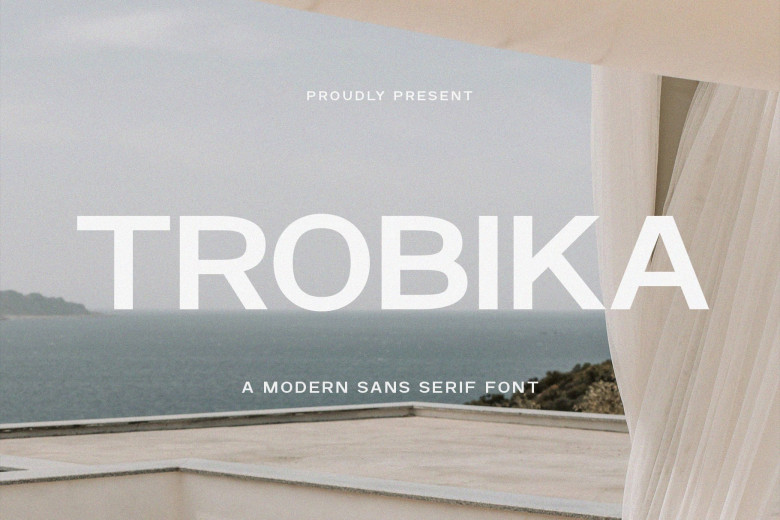
Trobika Font
Trobika is an elegant and modern typeface perfect for display purposes such as headings logos branding product packaging magazines invitations. Distinguished by smooth edges and flowing curves that add a sense of grace to every project, Trobika adds a luxurious feel.
Trobika Sans Serif Font